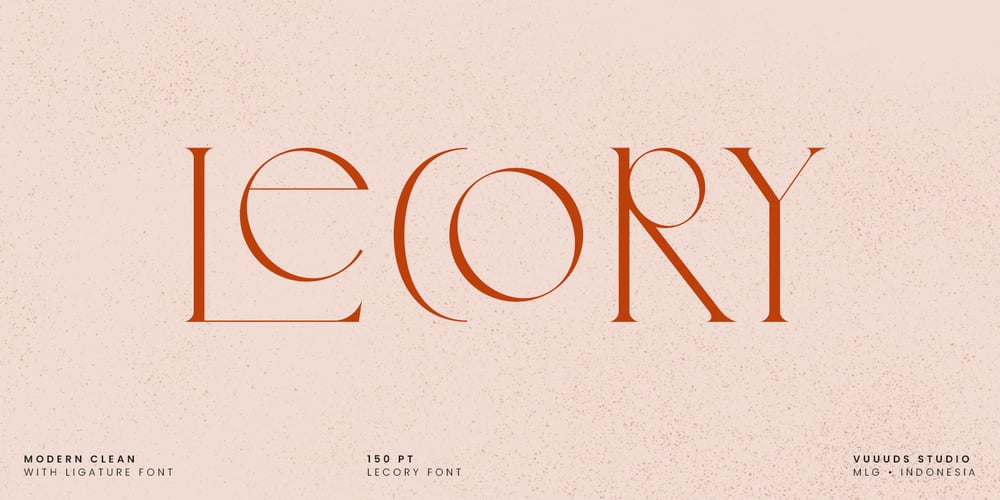
Lecory Font Family was designed by Agung Syaifudin and published by vuuuds. Lecory contains 1 styles and family package options. Introducing Lecory Font!Lecory is modern serif font, every single letters have been carefully crafted. This font including beautiful alternate glyph. You can access the alternate glyph via Font Book (Mac user) or Windows Character Map (Windows user).